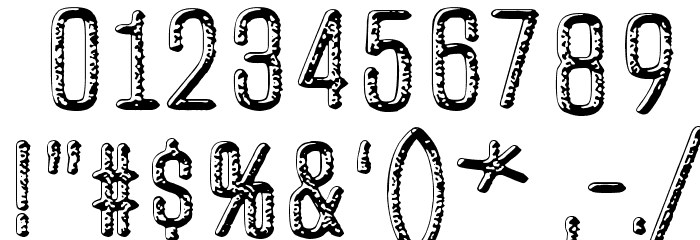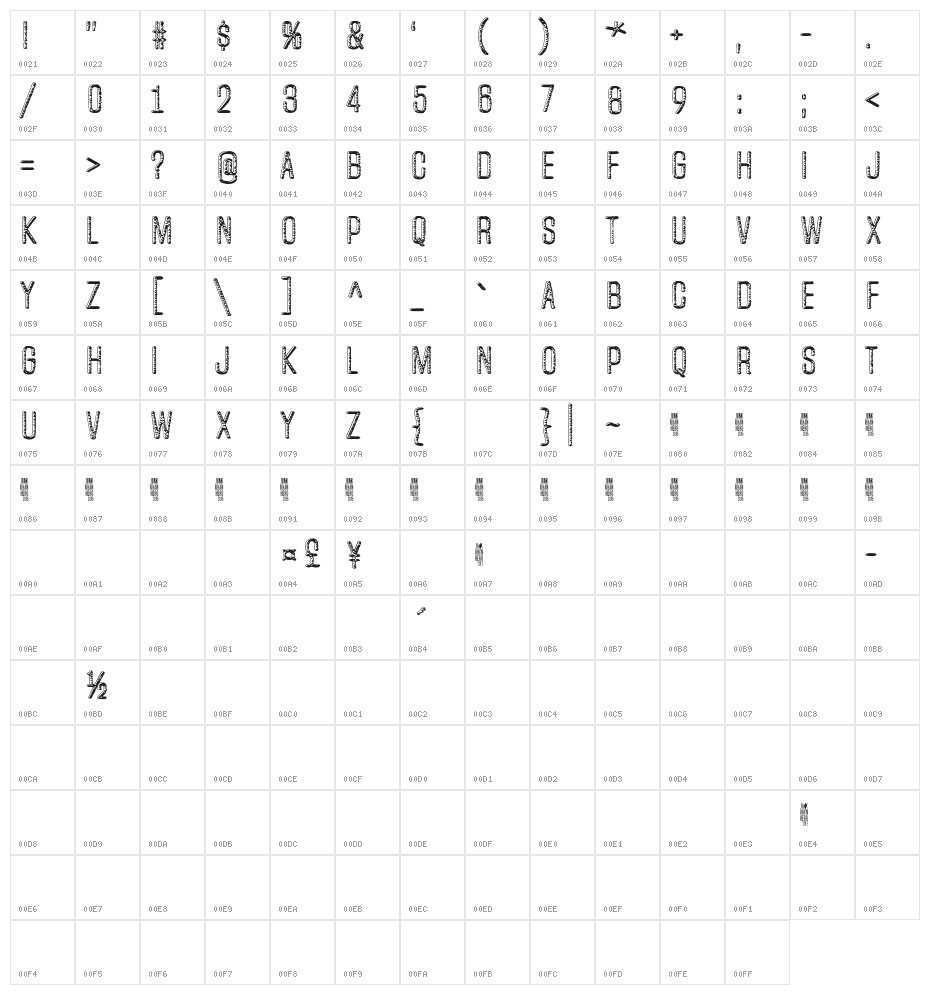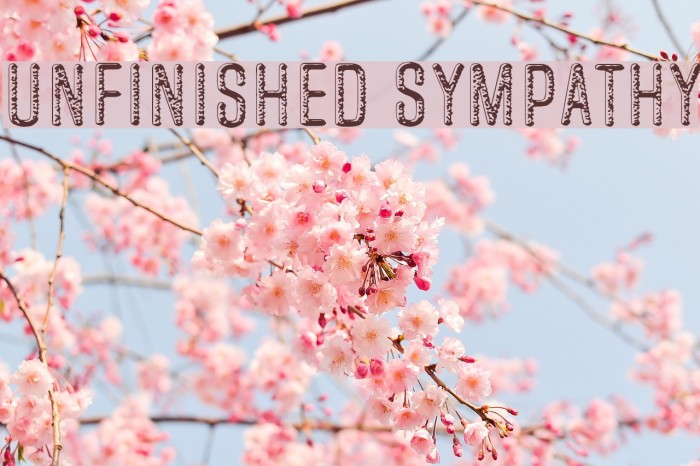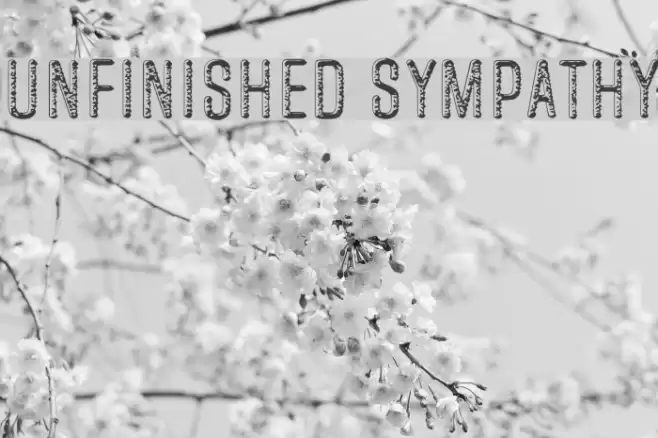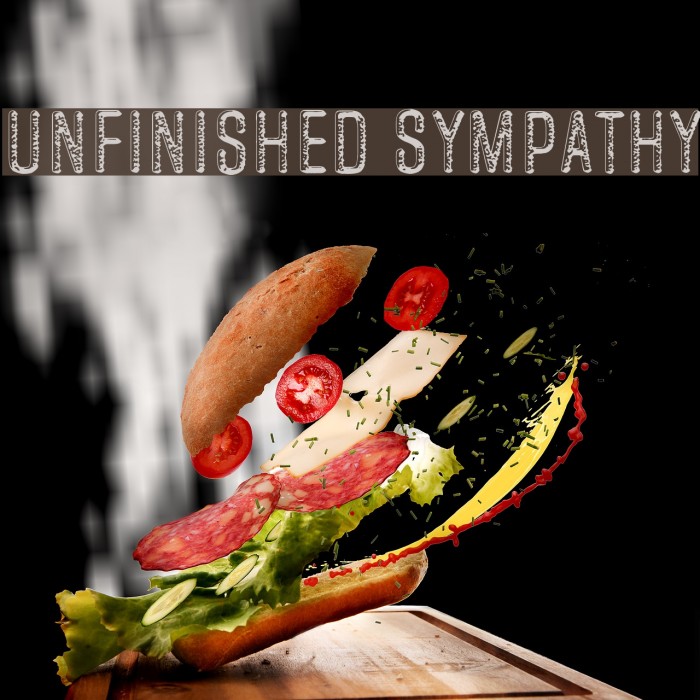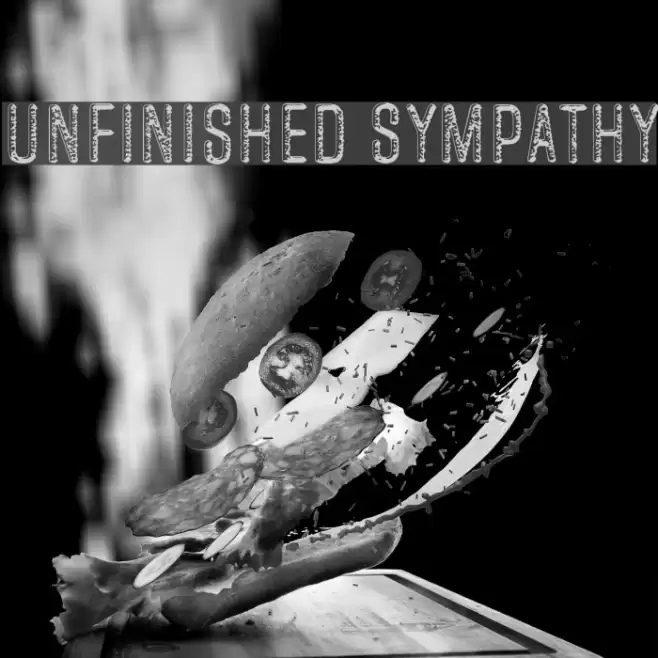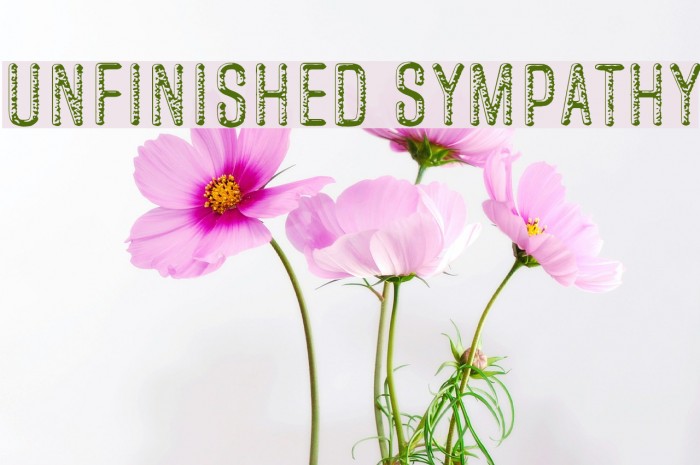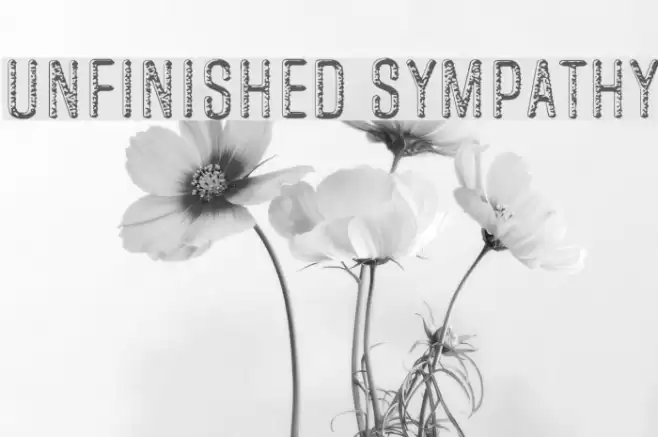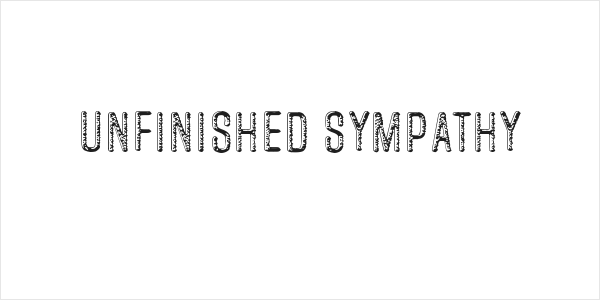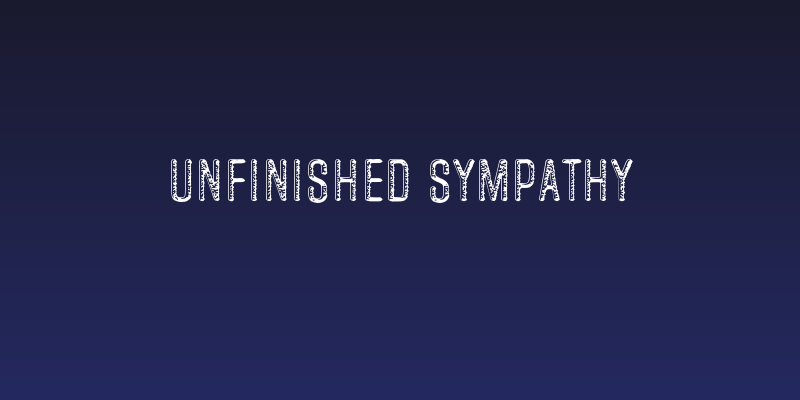
Unfinished Sympathy Font
Unfinished Sympathy Description
This font features a unique, distressed style with a textured appearance that gives it a rugged and vintage feel. The characters are bold and display a hand-drawn quality, with uneven edges and a stippled pattern within each letter. This creates a sense of depth and dimension, making the font stand out. The uppercase and lowercase letters maintain a consistent design, while the numbers and special characters complement the overall aesthetic. The font's distinctive look is ideal for projects that require a touch of nostalgia or a handcrafted vibe.
| Use Case | Logos, Posters, Branding |
| Proposed Projects | Ideal for vintage-themed posters, logos, packaging, and branding materials that require a handcrafted or rugged look. |